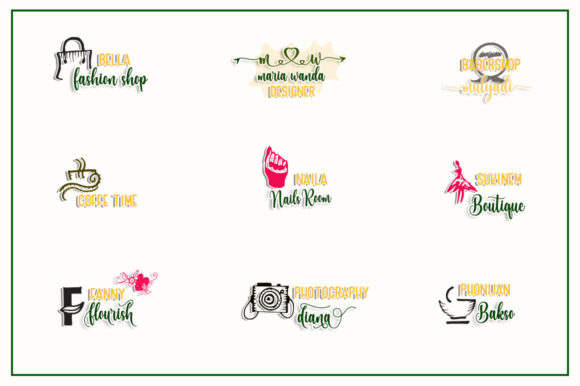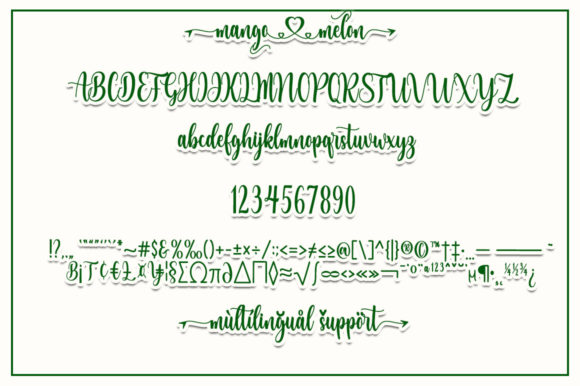
Plant Mangomelon Font
db-ku.com - Script & Handwritten -- Plant Mangomelon is an elegant and dainty duo font (sans serif and handwritten), that features sweet and delicate swashes. This original look will appeal to a wide range of crafty ideas, from letterheads and titles, to stationery.